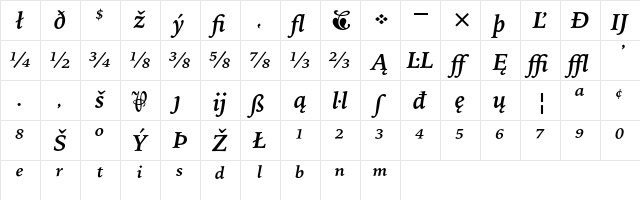
Bitstream Iowan Old Style Bold Italic Extension
Style: Bold Italic Extension
Design Context for Bitstream Iowan Old Style
Bitstream Iowan Old Style is a composed and adaptable typeface that performs quietly and consistently across a wide range of design contexts. The slanted form adds forward momentum and visual energy. Its bold stroke weight gives it real presence on the page.